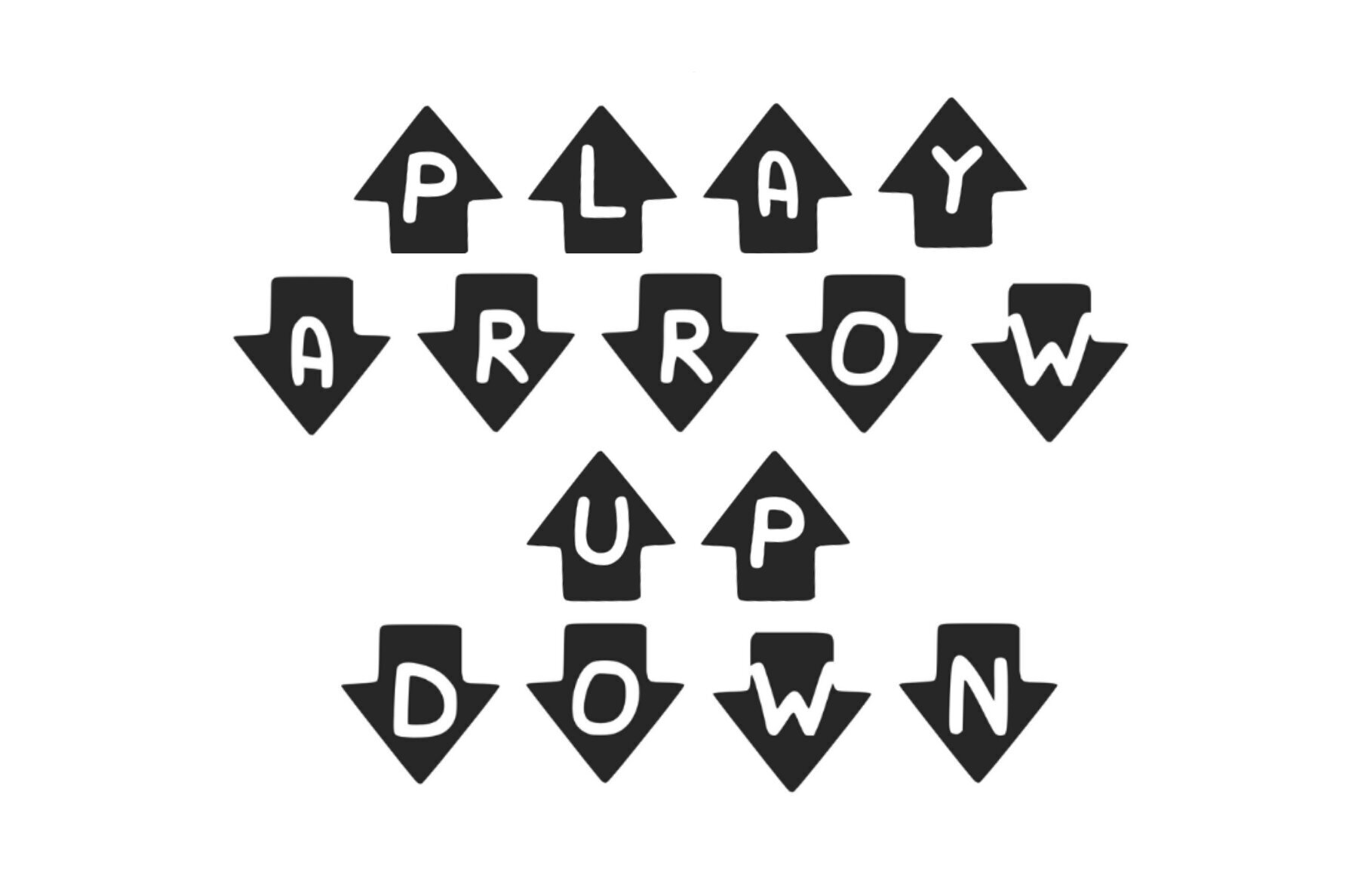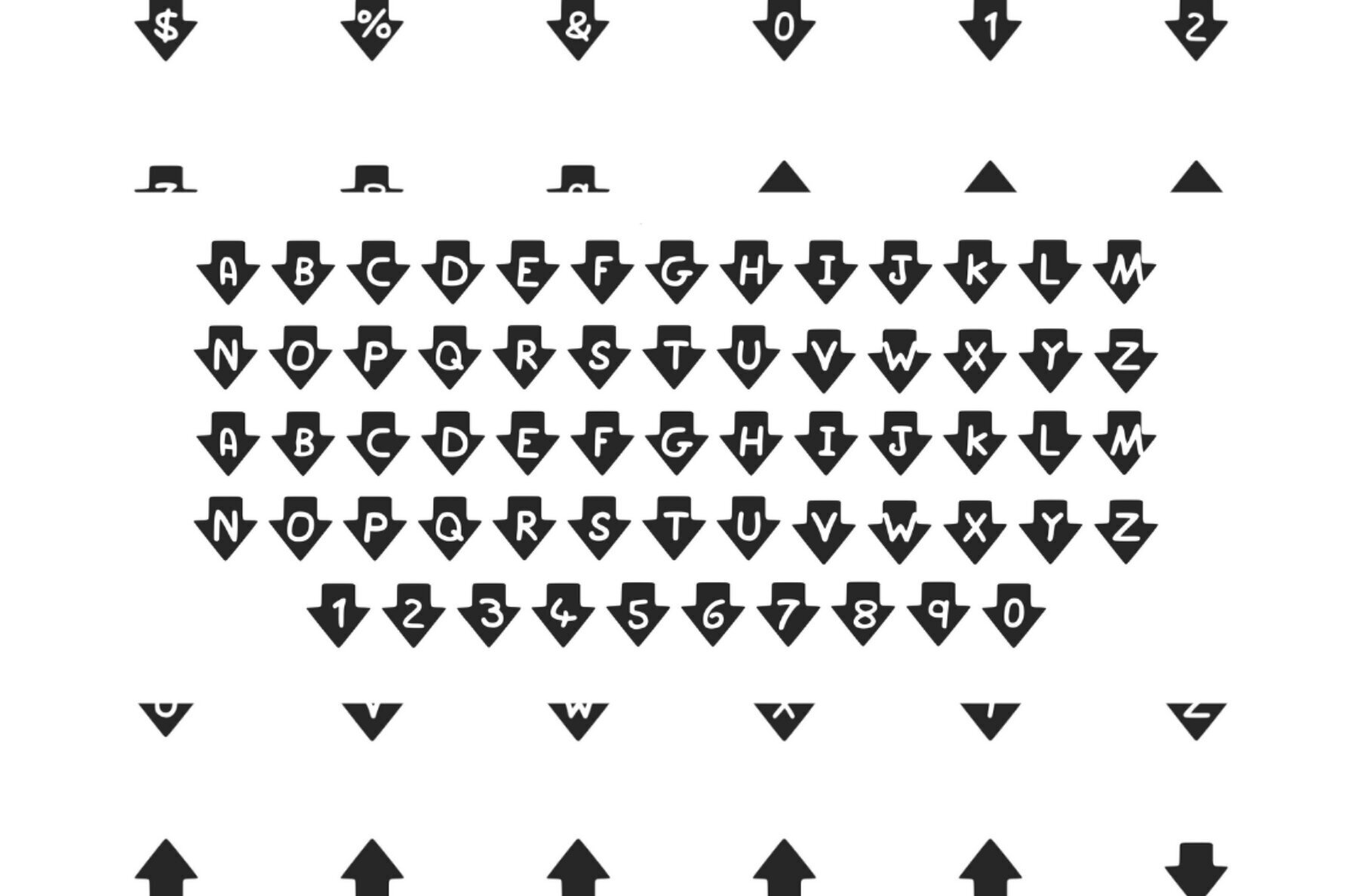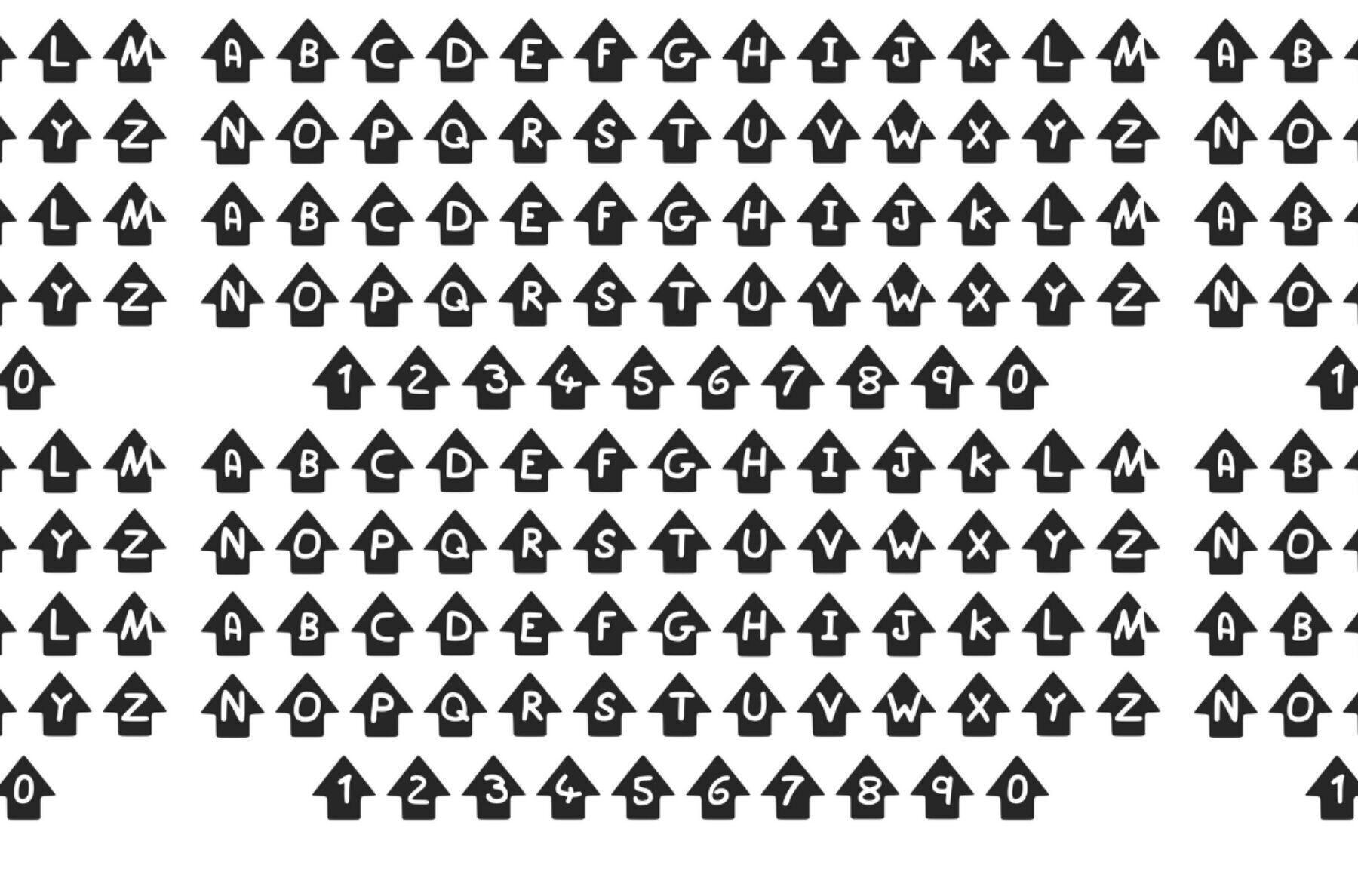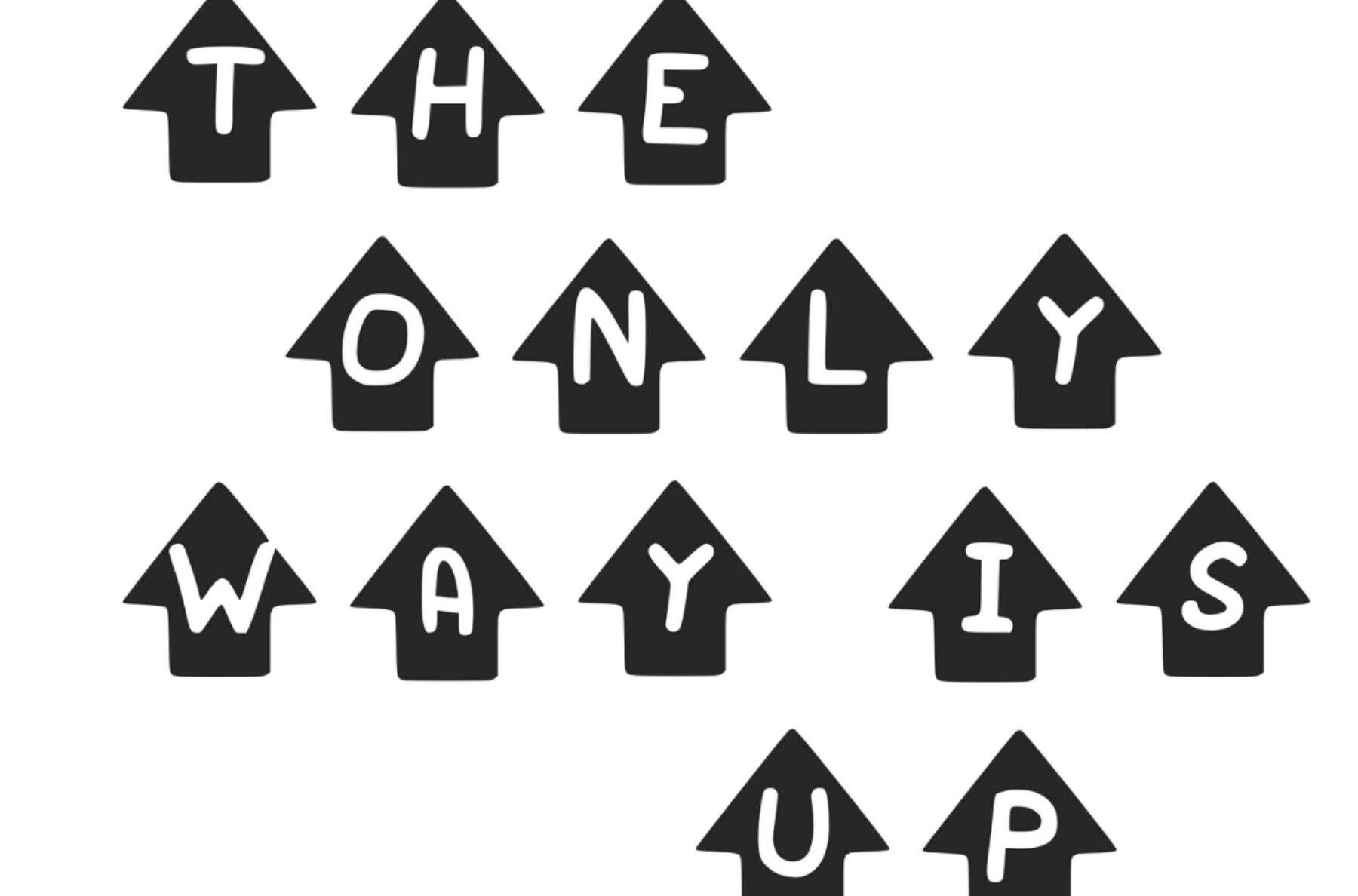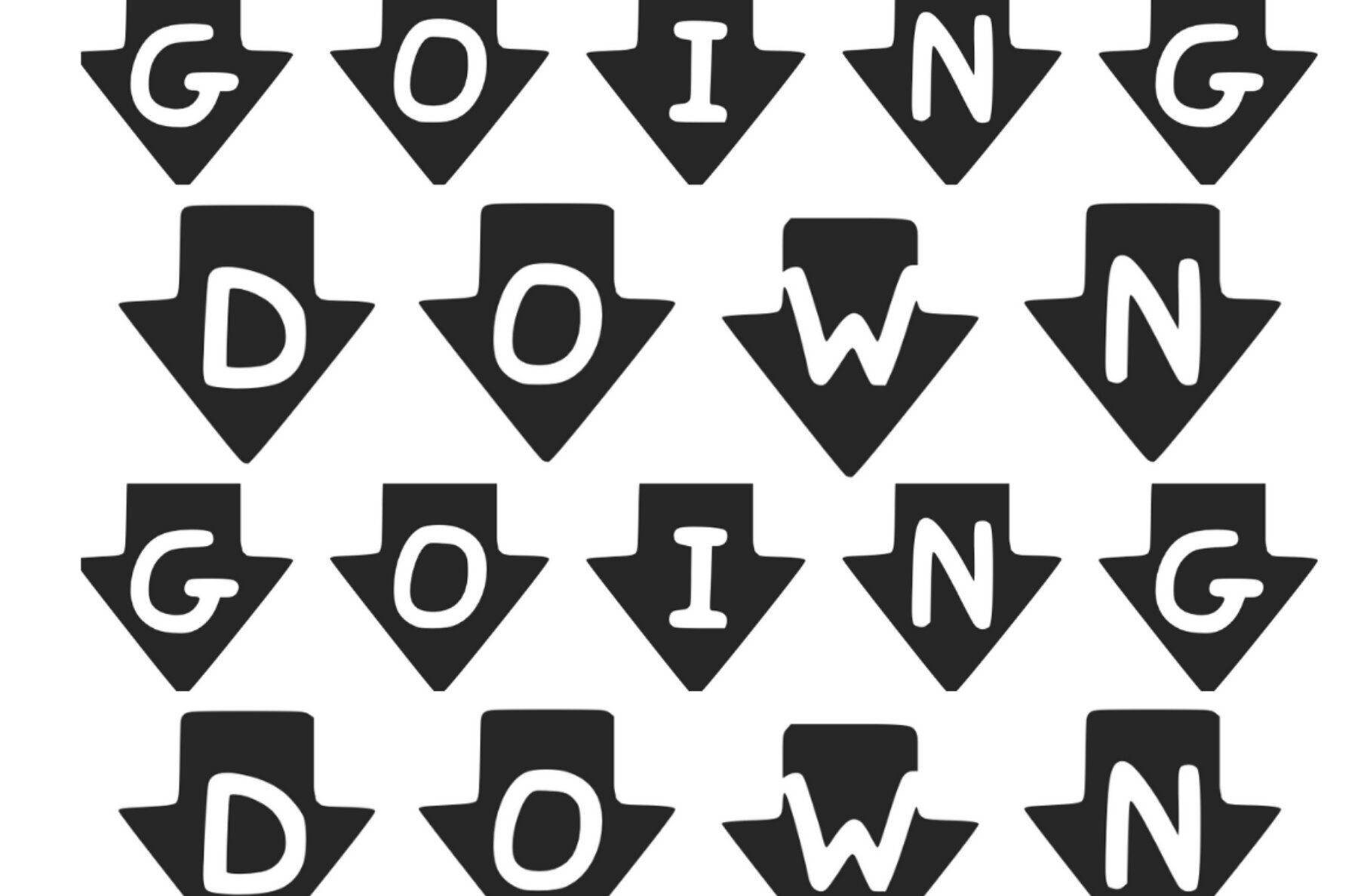
Play Arrows Font
Bring a playful touch to your designs with the unique Play Arrows font. This whimsical typeface features an arrow theme with characters pointing up and down, adding a distinct twist to your creative projects. Whether you're working on scrapbooking, invitations, or party banners, this font offers a personalized appearance that's sure to stand out.Play Arrows: A Fun Decorative Font